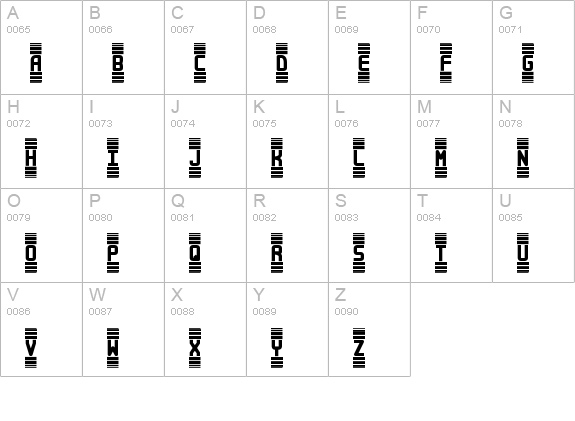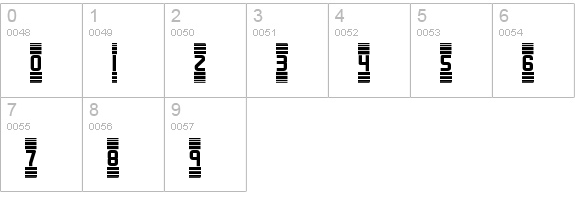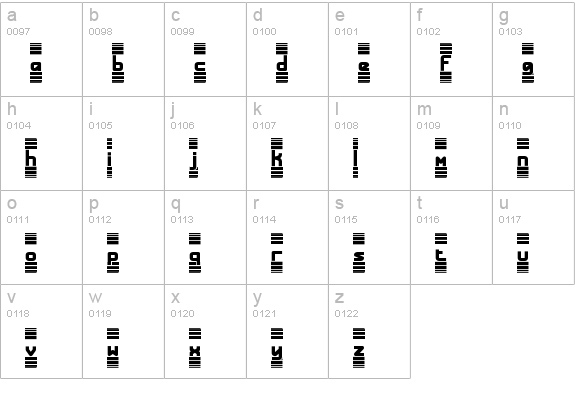
Bandwidth -BRK- font is a modern and sleek typeface that exudes a sense of sophistication and elegance. With its clean lines and contemporary design, this font is perfect for a wide range of projects, from branding to editorial design. The unique character shapes and balanced letter spacing make Bandwidth -BRK- font stand out from the crowd and add a touch of professionalism to any design. What's even better is that Bandwidth -BRK- font is available for free download at FontsMarket.com. Yes, you read it right – this high-quality font can be yours at no cost at all. So why wait? Elevate your designs with Bandwidth -BRK- font today and make a statement with your typography!